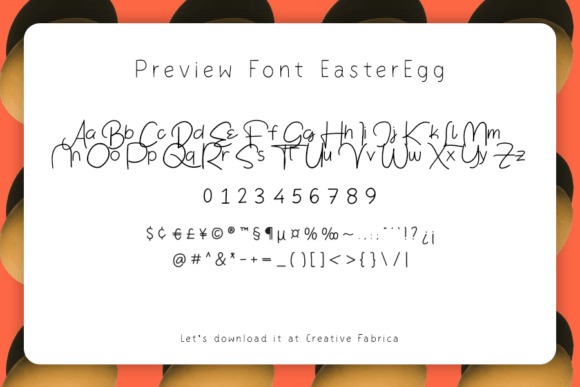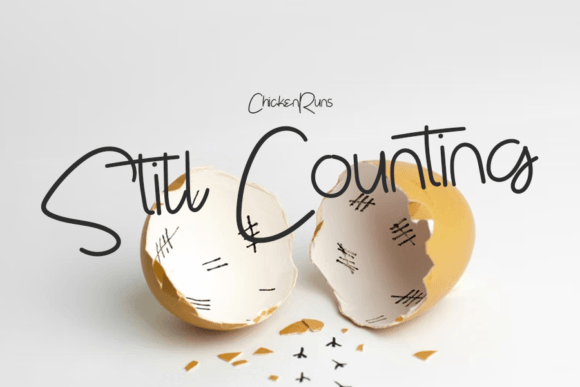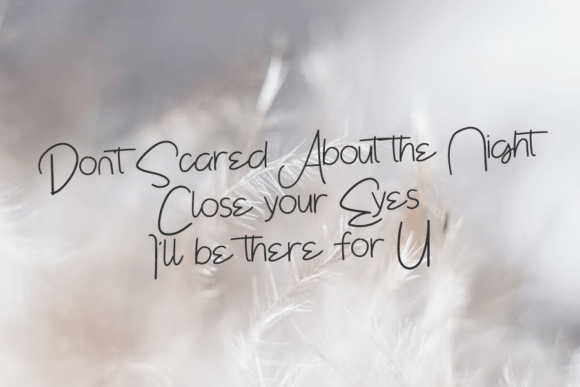
Introduction to Easteregg Font
EasterEgg is a lovely and sweet handwritten script font.
This gentle font will look gorgeous on a variety of design ideas It will add a joyful and romantic touch to each of your projects.
Easteregg Font offers exceptional quality and versatility, making it a valuable addition to your design toolkit. Whether you’re creating for personal projects or commercial use, Easteregg Font delivers professional results.